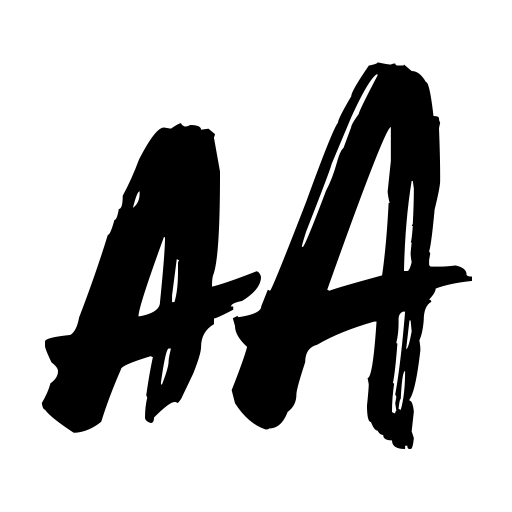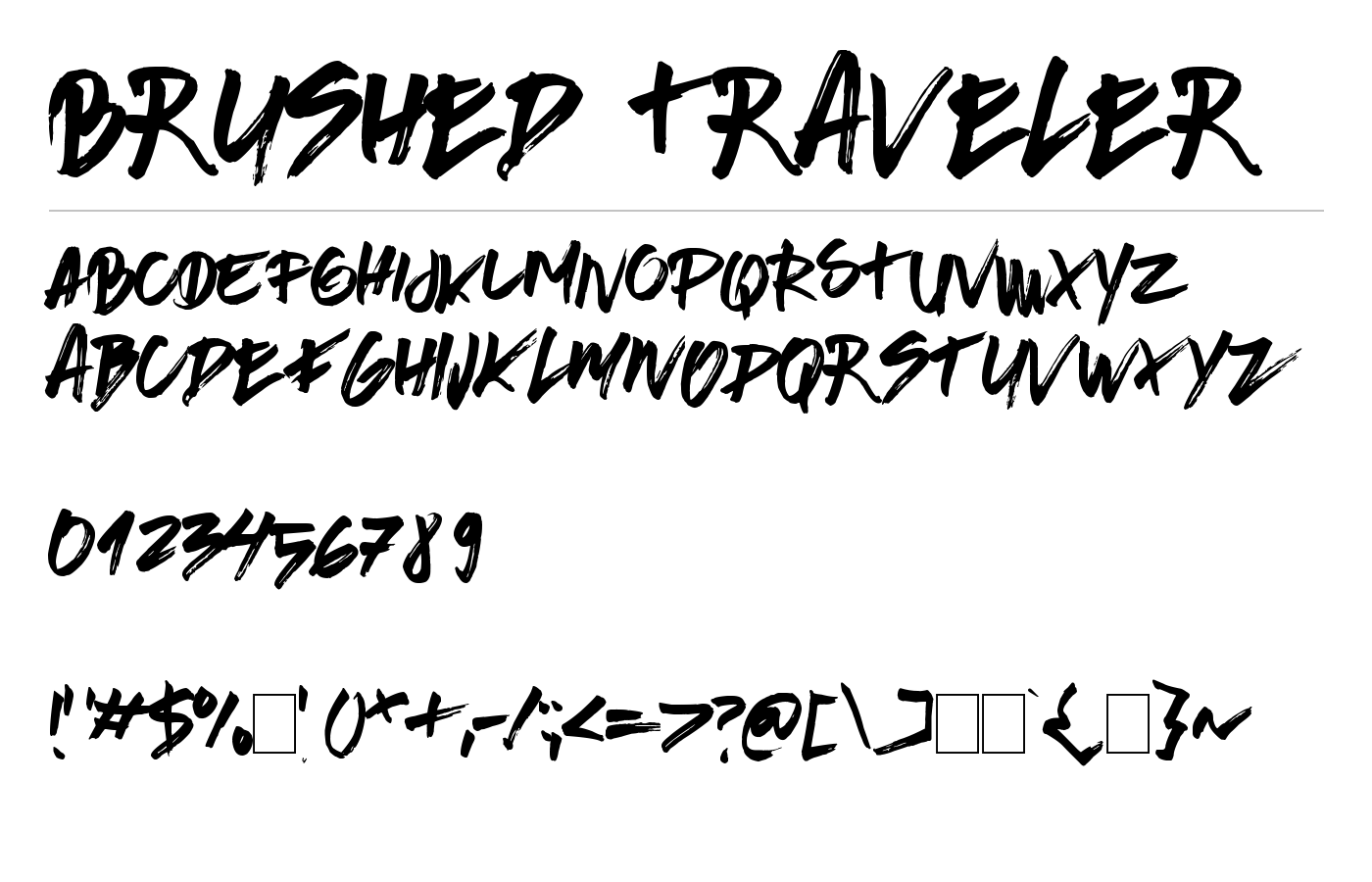
Brushed Traveler is a bold, expressive brush script font that brings energetic, hand-painted style to any design. Its dynamic strokes with rough textured edges create a lively, adventurous vibe, making it ideal for travel brands, casual headlines, and creative packaging that want to feel spontaneous and authentic. This font works best in large sizes where its strong personality shines through, adding a handcrafted charm to bold, eye-catching visuals.
Brushed Traveler Font
About Brushed Traveler Font
| Font family | Brushed Traveler Font |
| Designer | Leonard Posavec |